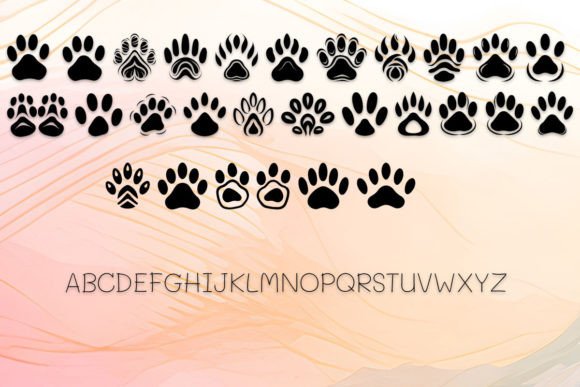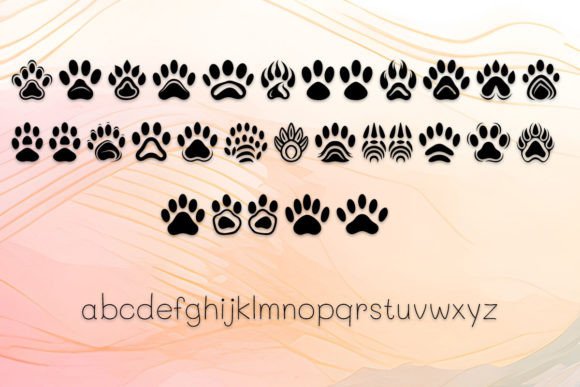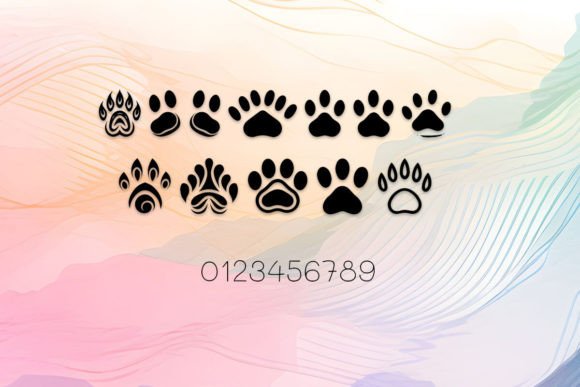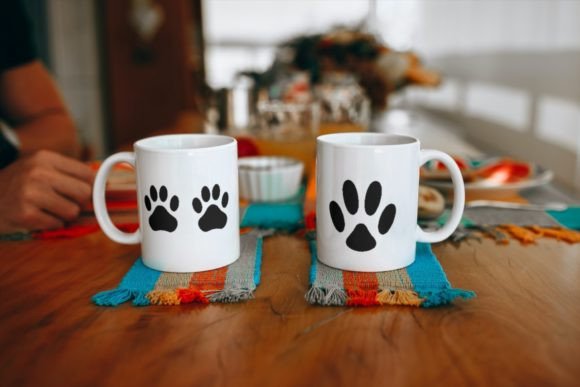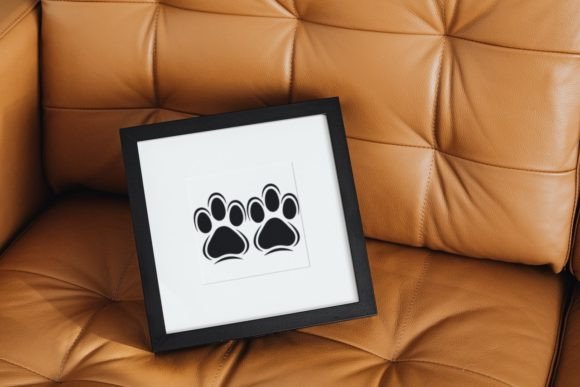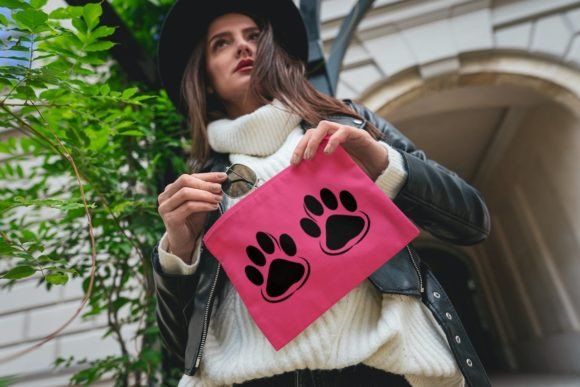
Get Ready to Purr-fect Your Designs with the Cat Paws Font
As a designer, have you ever stared at a blank canvas, searching for the perfect element to bring your creation to life? Maybe it was a quirky icon or an unusual font that sparked inspiration. For me, it was a cute cat paw print that made me think, ‘Why not?’ Why not design a font that combines the whimsy of cats with the precision of typography?
Enter the Cat Paws Font, a set of 62 characters that redefine the way we think about text. This unique font features cat paw-themed symbols and elements, replacing conventional alphanumeric characters. From the playful ‘A’ shaped like a paw print to the adorable ‘0’ resembling a kitten’s nose, every character in the Cat Paws Font is designed to bring a smile to your face. For designers, this font is a valuable addition to their toolkit, offering endless possibilities for creative expression and visual storytelling.
Cat Paws Font Key Features
- Font Family: Cat Paws, Cat Paws Bold, Cat Paws Italic, Cat Paws Bold Italic
- Unique Characteristics: The Cat Paws font features hand-drawn, whimsical cat paw-inspired characters with a playful and cute design aesthetic
Designer Review: Cat Paws Font
Overall, I’m underwhelmed by the Cat Paws Font. While it has some redeeming qualities, it falls short in several areas. Let’s dive in.
- The playful, whimsical feel of the font is perfect for children’s books or cat-themed merchandise.
- The varied line heights and spacing between characters add a nice touch of realism, making it feel more like actual cat paws.
- The font is easy to read, even at smaller sizes, which is a must for any font.
- The font lacks consistency, with some characters feeling more like paw pads and others more like claws.
- The character set is limited, making it difficult to use for extended passages of text.
- The font’s quirky nature makes it hard to pair with other fonts, limiting its versatility.
Overall, I’d give the Cat Paws Font 2.5 out of 5 stars. While it’s a fun, unique font, its limitations make it less suitable for general use. However, for a specific project where its quirky nature fits, it could be a great choice.
The Cat Paws Font is a playful and whimsical font that is perfect for:
- Children’s books and educational materials.
- Party invitations and decorations.
- Food and drink labels.